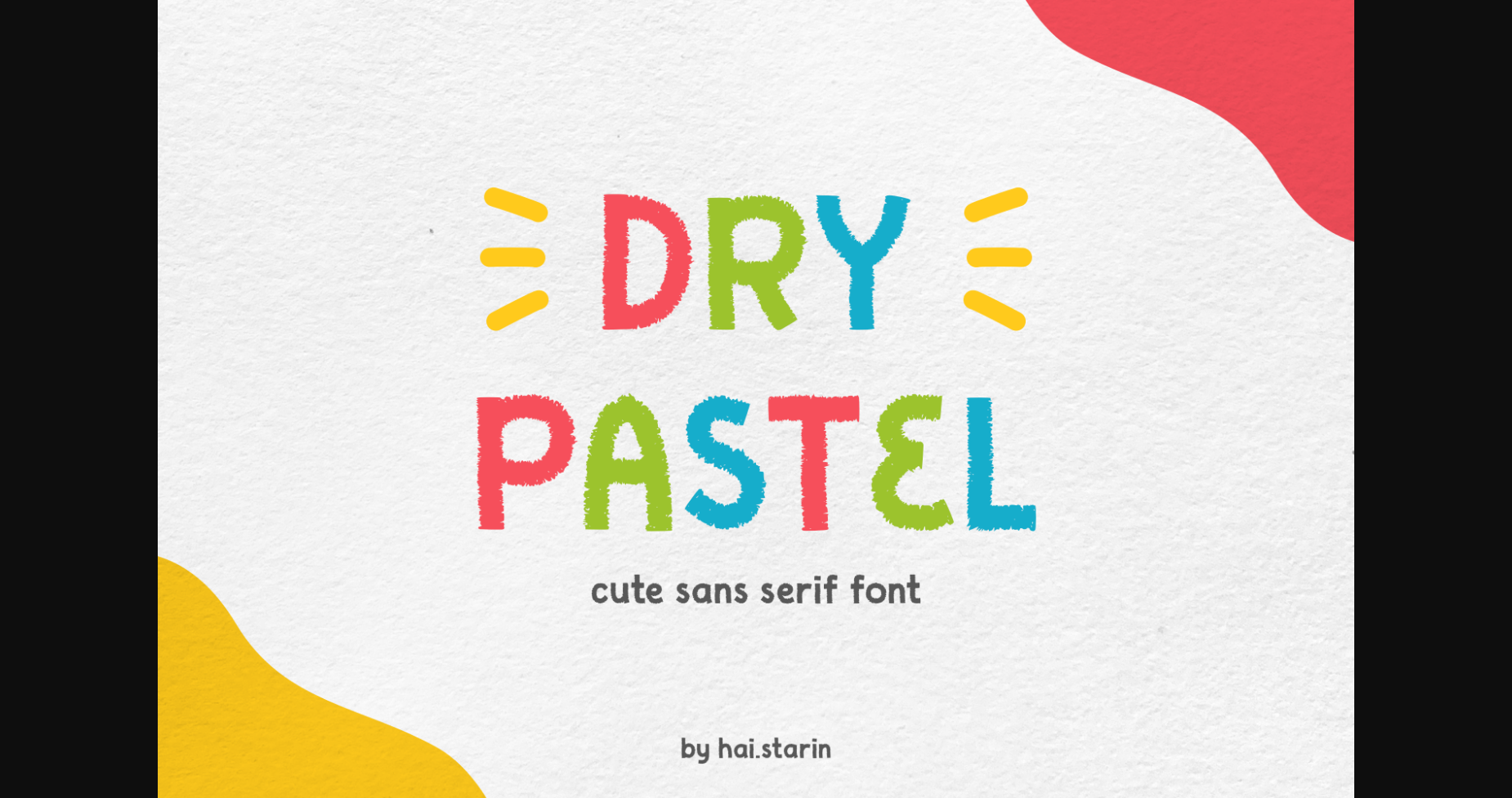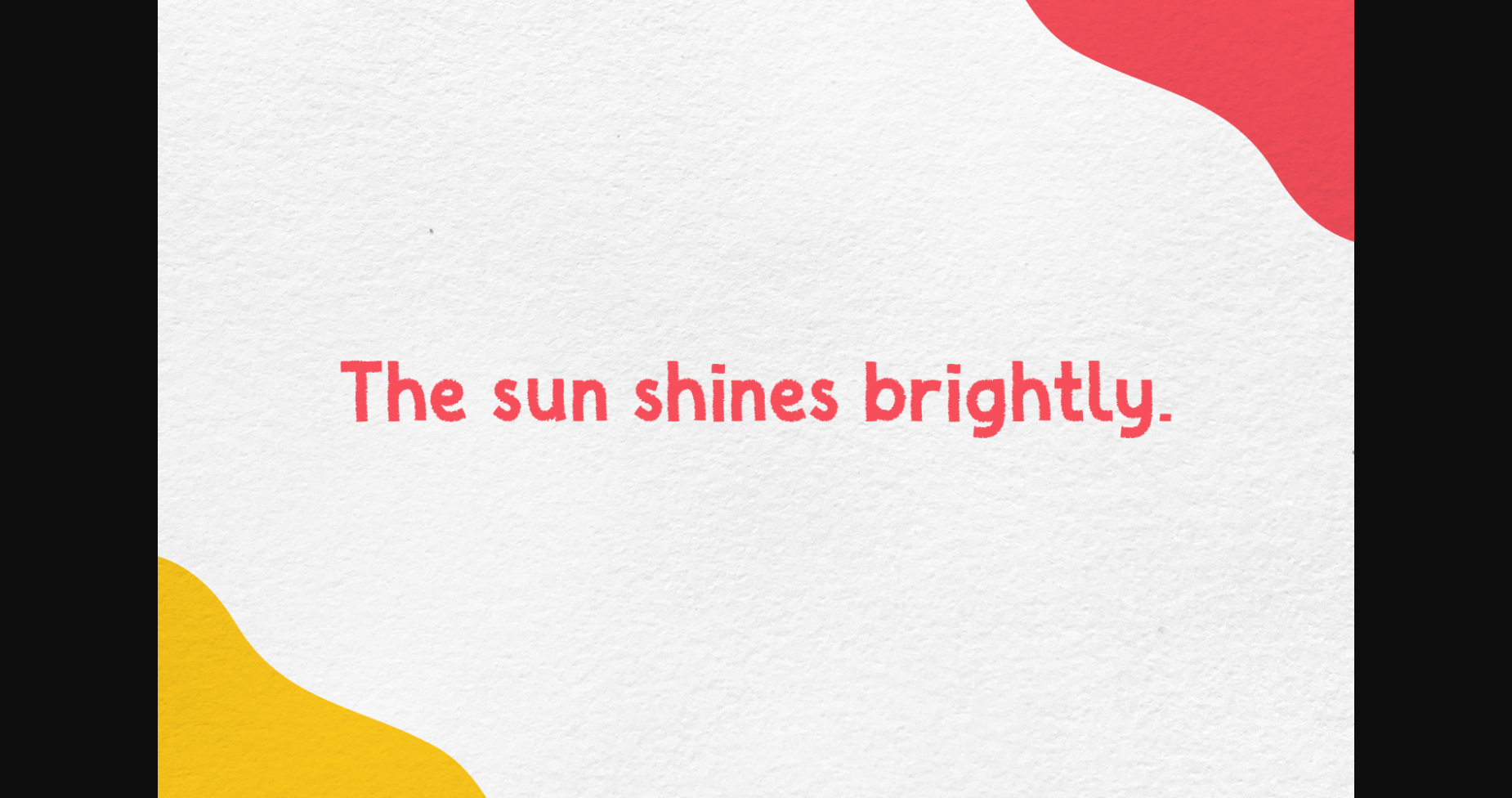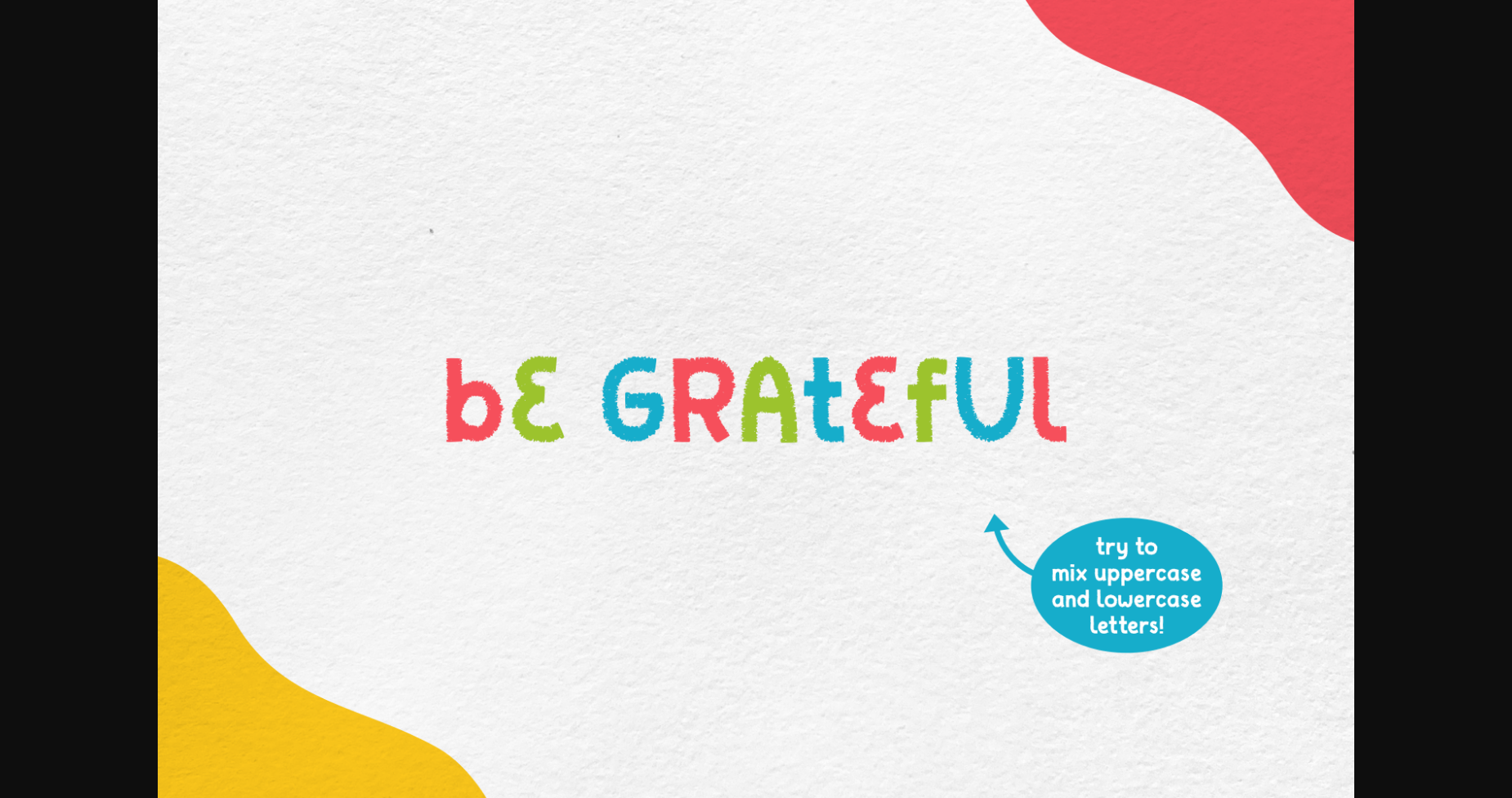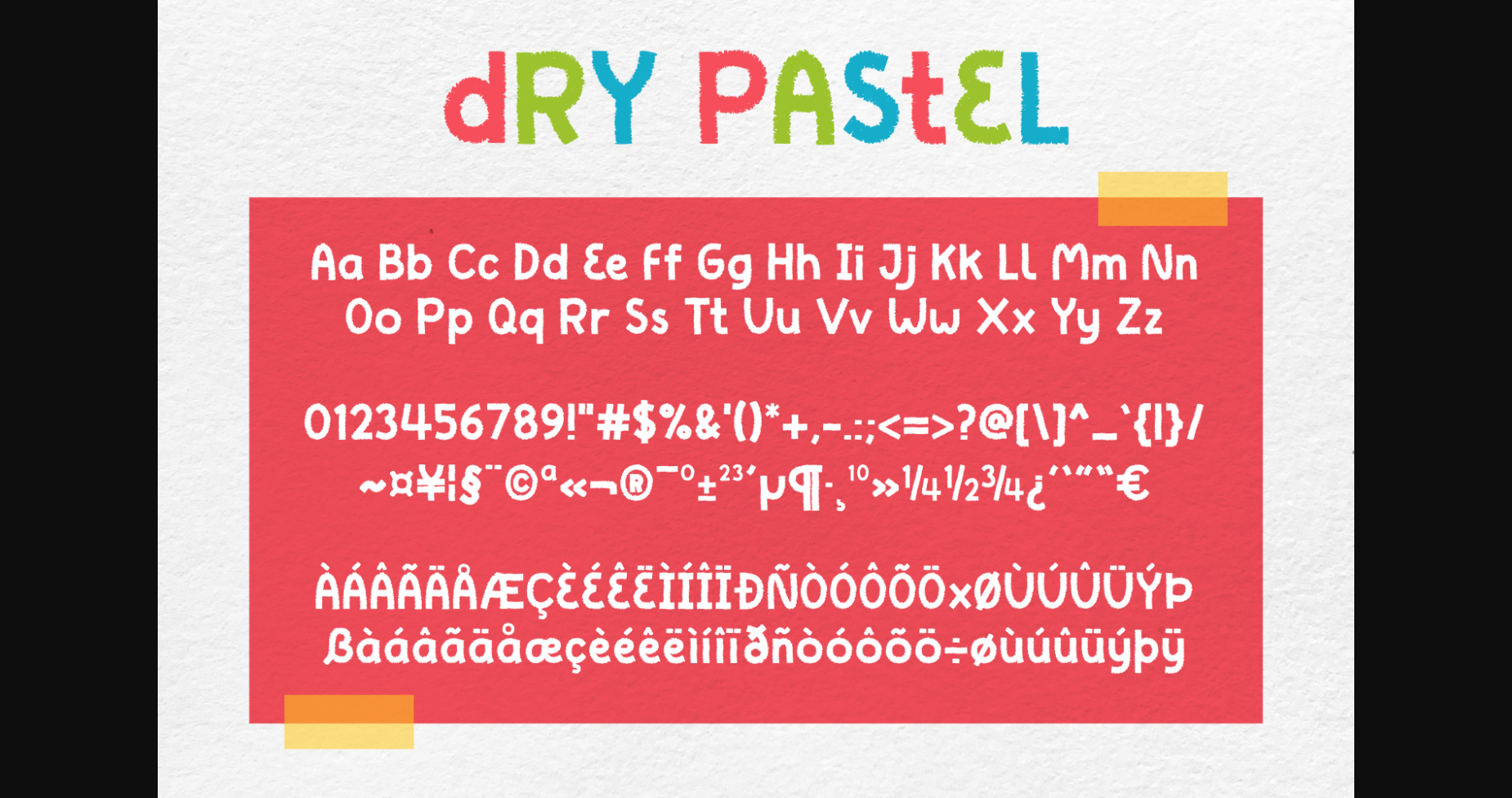
About Dry Pastel Font
Meet a vibrant and eye-catching sans-serif font, crafted to infuse any design with energy and liveliness. Its bold strokes and playful angles make it perfect for everything from digital designs to packaging and branding. With a range of dynamic colors to choose from, this font is sure to leave a lasting impression.